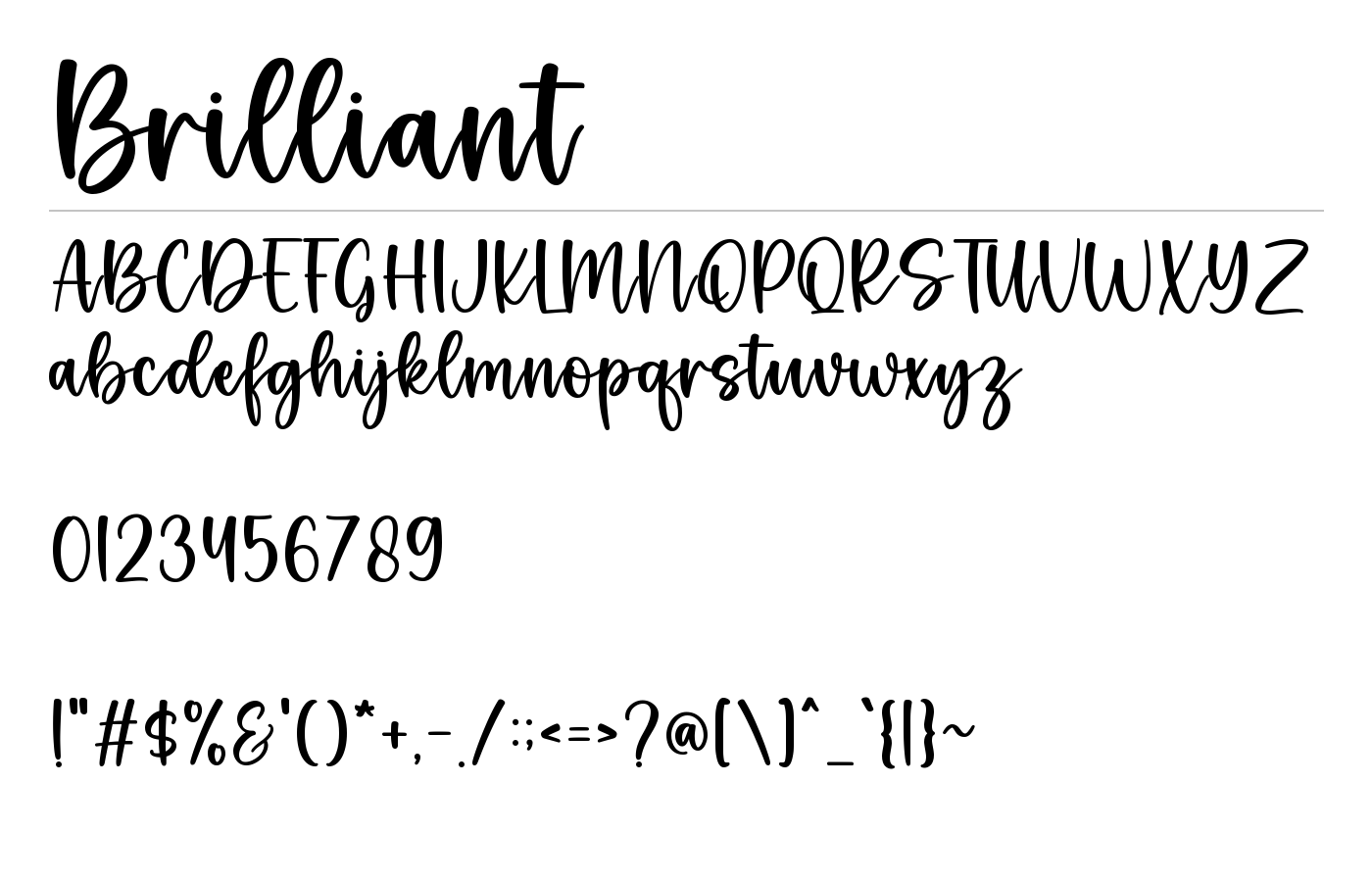
Brilliant is a lively and elegant script font with a hand-drawn feel, featuring smooth, flowing strokes and a friendly, casual charm. Its moderate contrast and playful letterforms make it ideal for creative branding, invitations, and headlines where a personal, approachable look is desired. This font works well in designs that aim to convey warmth and creativity with a stylish yet informal touch.
Brilliant Font
About Brilliant Font
| Font family | Brilliant Font |
| Designer | Risma Ramawi |